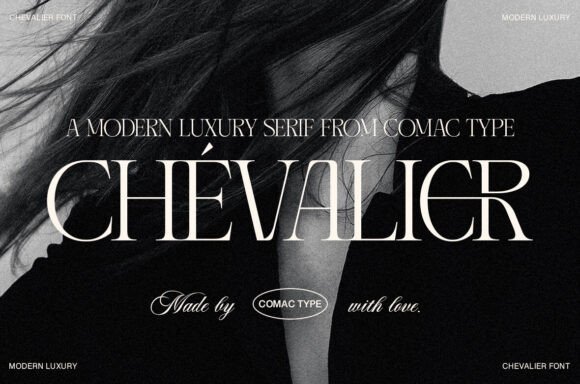
Introducing Chevalier Font: A Multipurpose and Unique Display Font
Are you tired of using the same old fonts for your design projects? Look no further than the Chevalier Font, a versatile and distinctive display font that’s perfect for modern and vintage designs alike. In this article, we’ll dive into the features and benefits of the Chevalier Font, and explore how it can elevate your branding, print templates, logos, and more.
A Font for All Seasons
CHEVALIER is a multipurpose font that’s designed to adapt to any design style or project. Whether you’re working on a modern branding campaign or a vintage-inspired print template, this font is sure to impress. Its unique character set and elegant lines make it an excellent choice for a wide range of applications, from logos and headlines to packaging and advertising.
What Sets Chevalier Apart
So, what makes the Chevalier Font so special? Here are just a few of its standout features:
- Uppercase and Lowercase Letters: The Chevalier Font includes both uppercase and lowercase letters, giving you maximum flexibility when it comes to creating titles, headings, and body text.
- Ligature and Alternate Styles: Add an extra touch of elegance to your designs with the font’s built-in ligatures and alternate styles.
- Multilingual Support: The Chevalier Font supports multiple languages, making it an excellent choice for global brands and designers who work with international clients.
With the Chevalier Font, the design possibilities are endless. Here are just a few ideas to get you started:
- Branding: Create a memorable brand identity with a custom logo or letterhead that showcases the Chevalier Font’s unique character.
- Print Templates: Use the font to create stunning print templates for brochures, flyers, and other marketing materials.
- Logos: Design a show-stopping logo that incorporates the Chevalier Font’s elegant lines and distinctive style.
- Packaging: Add a touch of sophistication to your product packaging with custom labels and designs that feature the Chevalier Font.
Why Choose the Chevalier Font?
With so many fonts on the market, why choose the Chevalier Font? Here are just a few reasons why designers and crafters love this versatile display font:
- Unique Style: The Chevalier Font offers a distinctive style that’s sure to set your designs apart from the crowd.
- Flexibility: With its multipurpose design and wide range of features, the Chevalier Font can be used for a variety of projects and applications.
In conclusion, the Chevalier Font is a versatile and unique display font that’s perfect for designers and crafters who want to add a touch of elegance and sophistication to their projects. With its multipurpose design, wide range of features, and ease of use, this font is sure to become a go-to choice for a variety of applications. Whether you’re working on a modern branding campaign or a vintage-inspired print template, the Chevalier Font is an excellent choice that’s sure to impress.
Get Creative with Chevalier Font